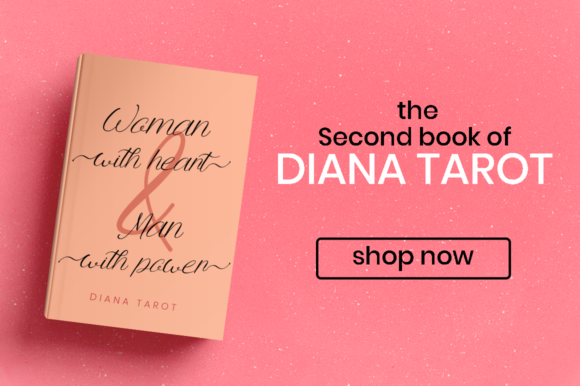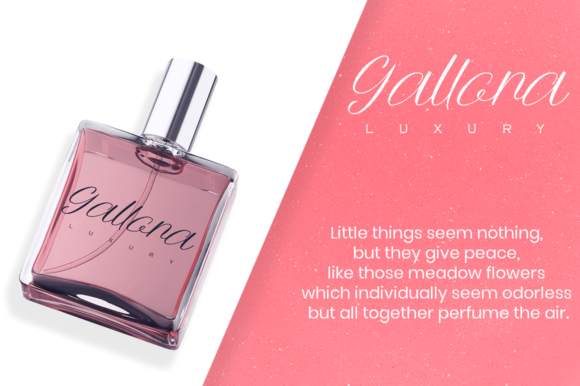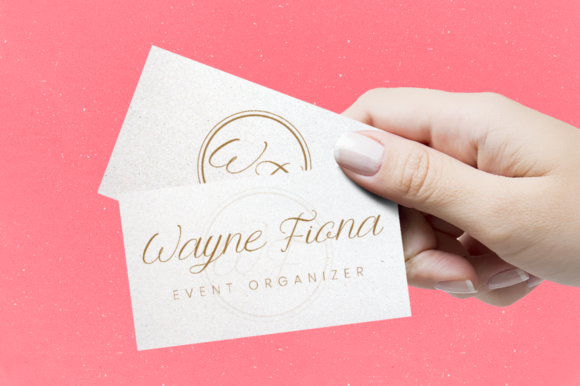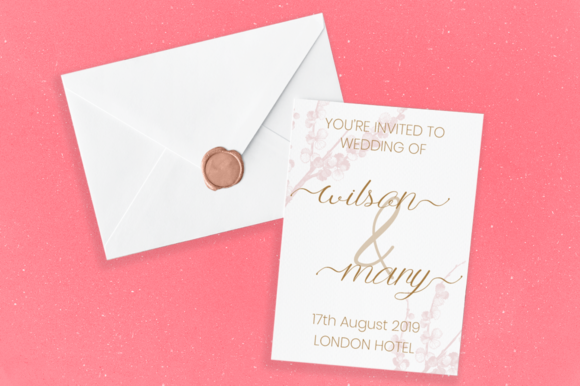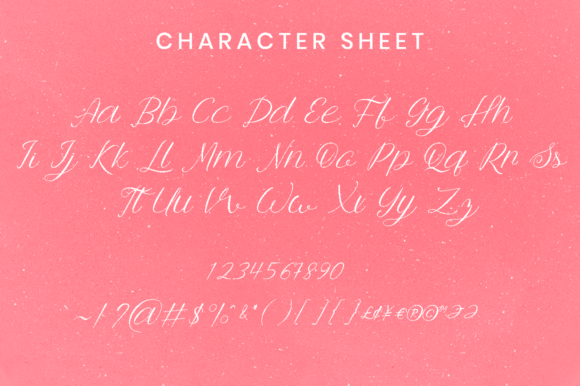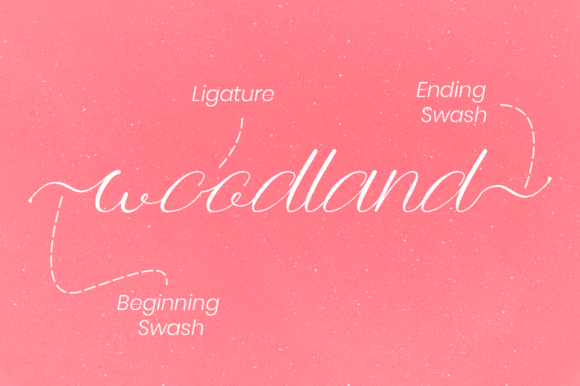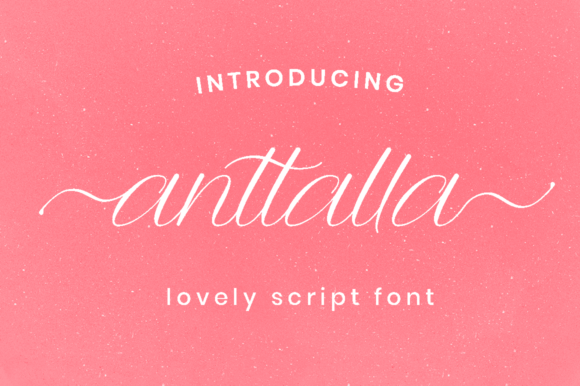
Introducing Anttalla Font: The Sweet and Bold Script for Modern Crafting
Are you a designer or crafter looking for a unique and contemporary font to elevate your creative projects? Look no further than Anttalla Font, a sweet and bold script that is sure to make your work stand out. With its one-of-a-kind design and modern feel, Anttalla is the perfect choice for anyone looking to add a touch of personality to their crafting projects.
The Story Behind Anttalla Font
Anttalla Font is a carefully crafted script that is designed to be both beautiful and functional. Its unique design combines sweet and bold elements, making it perfect for a wide range of creative projects, from handmade cards and invitations to DIY crafts and more. Whether you’re a professional designer or a hobbyist crafter, Anttalla Font is sure to inspire your creativity and help you bring your ideas to life.
Key Features of Anttalla Font
So, what makes Anttalla Font so special? Here are just a few of its key features:
• Sweet and Bold Design: Anttalla Font combines sweet and bold elements to create a unique and eye-catching design that is sure to grab attention.
• Contemporary Feel: With its modern design and sleek lines, Anttalla Font has a contemporary feel that is perfect for crafters and designers who want to create modern and stylish projects.
• One-of-a-Kind Crafting Font: Anttalla Font is a truly unique font that is sure to set your projects apart from the crowd. Its distinctive design makes it perfect for crafters and designers who want to add a personal touch to their work.
How to Use Anttalla Font in Your Creative Projects
Anttalla Font is a versatile font that can be used in a wide range of creative projects. Here are just a few ideas to get you started:
• Handmade Cards and Invitations: Use Anttalla Font to create beautiful and personalized handmade cards and invitations for special occasions.
• DIY Crafts: Add a personal touch to your DIY crafts, such as scrapbook pages, journal entries, and more, with Anttalla Font.
• Signs and Banners: Use Anttalla Font to create eye-catching signs and banners for parties, events, and more.
• Social Media Graphics: Use Anttalla Font to create stunning social media graphics, such as Facebook posts, Instagram stories, and more.
Tips and Tricks for Getting the Most Out of Anttalla Font
Here are a few tips and tricks to help you get the most out of Anttalla Font:
• Experiment with Different Colors: Anttalla Font looks great in a wide range of colors, so don’t be afraid to experiment and find the perfect color scheme for your project.
• Combine with Other Fonts: Anttalla Font pairs well with a wide range of other fonts, so feel free to get creative and combine it with other fonts to create a unique look.
• Use it for Titles and Headings: Anttalla Font is perfect for titles and headings, so use it to add a touch of personality to your projects.